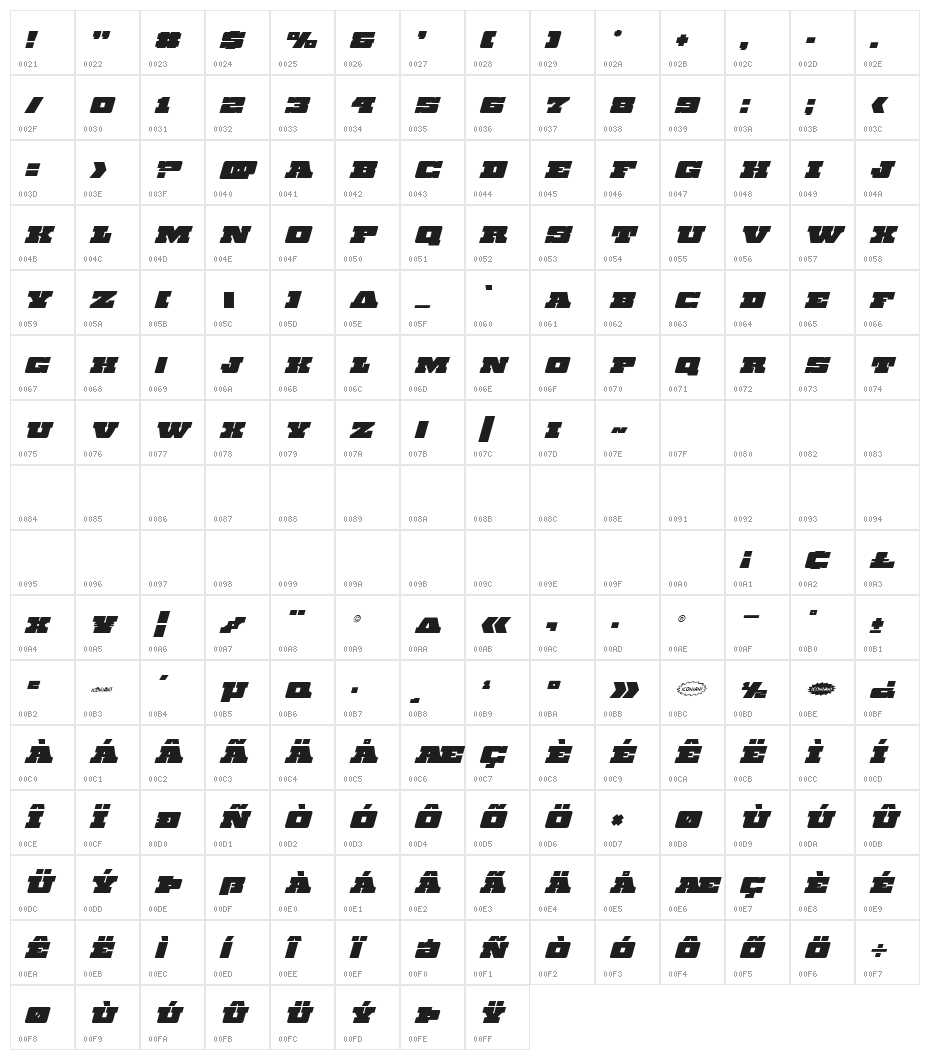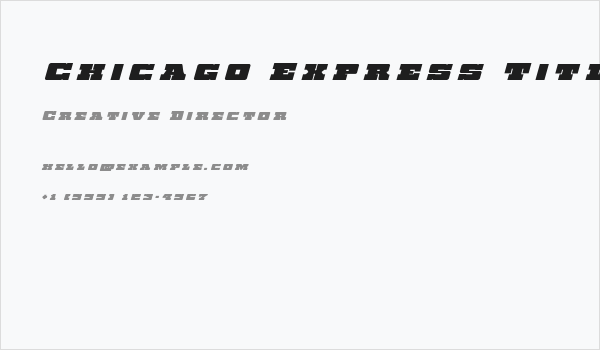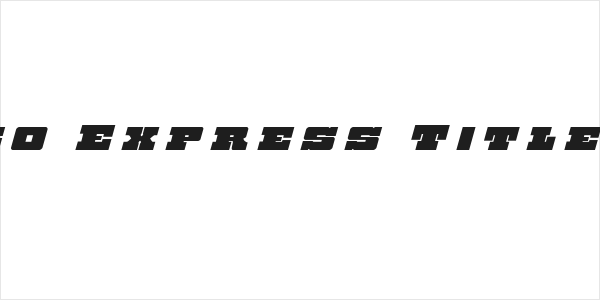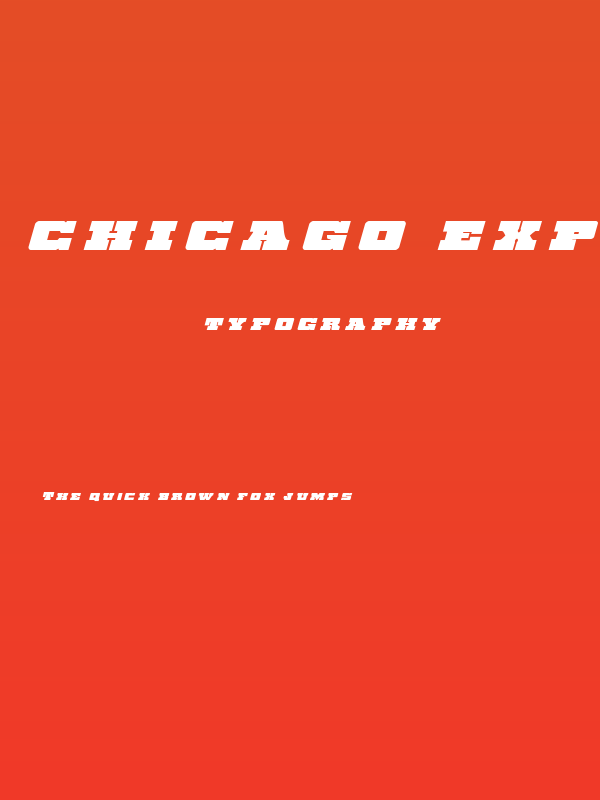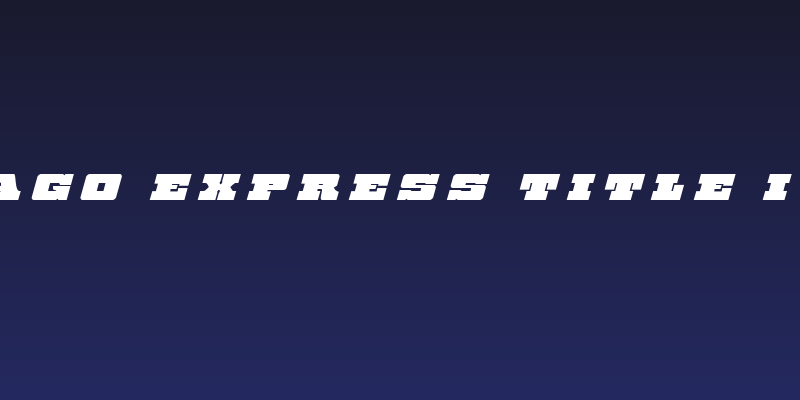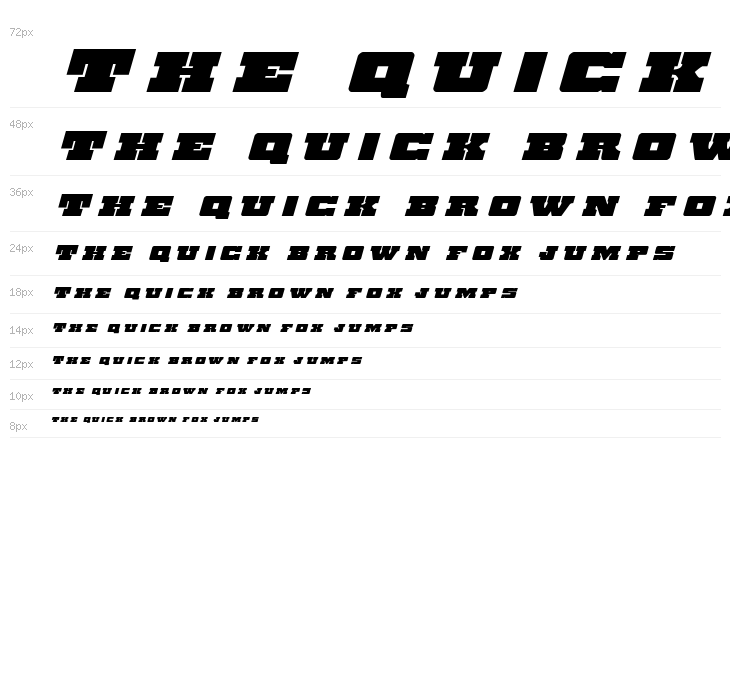
Chicago Express Title Italic Font
Chicago Express Title Italic Description
This font features bold, italicized characters with a strong, dynamic presence. The letters are blocky with sharp edges, giving them a robust and impactful look. The italic slant adds a sense of motion and urgency, making it ideal for attention-grabbing headlines or titles. The characters are uniformly wide, contributing to a consistent and cohesive appearance across the typeface. The numbers and special characters maintain the same bold and italicized style, ensuring a harmonious design throughout. This font is particularly suited for projects that require a bold statement or a modern, edgy aesthetic.